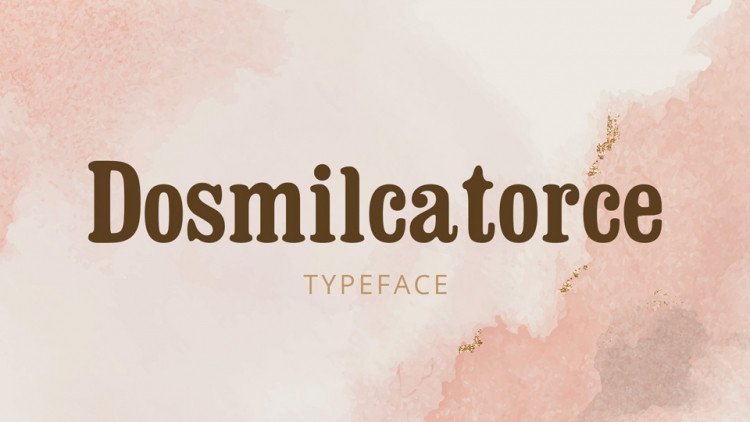
Dosmilcatorce Serif Font
Dosmilcatorce Serif Font is a soft and rounded serif font with vintage feel. It contains a full set of glyphs, including some accents.
Dosmilcatorce font looks beautiful for logos, badges, branding, cards and other old style designs.